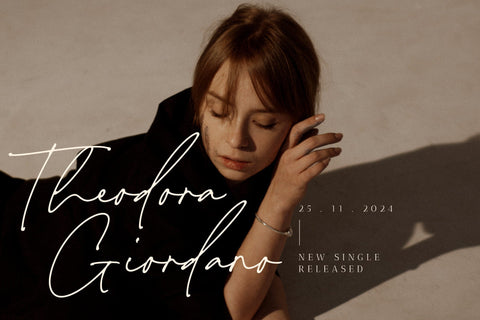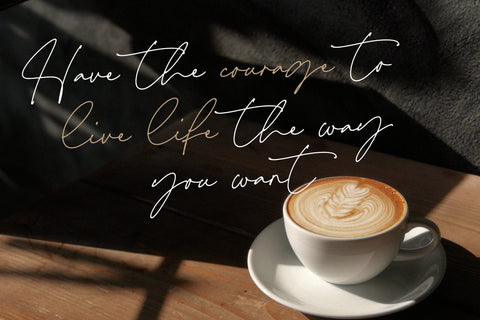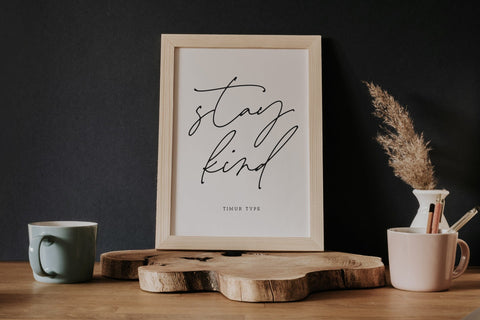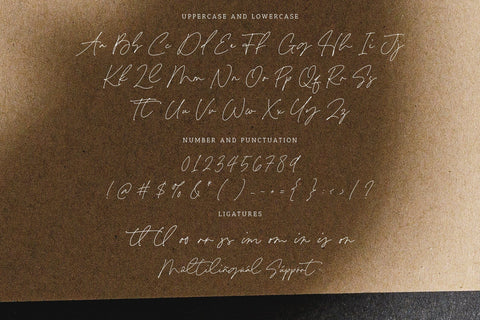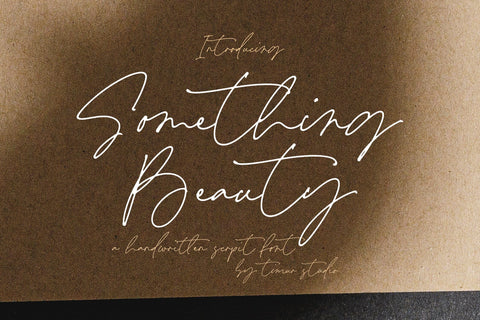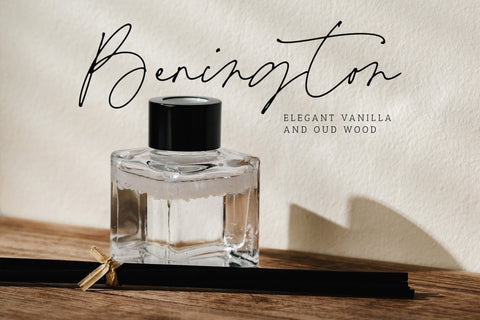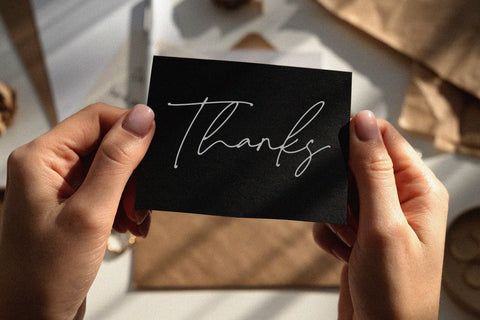
Something Beauty - Handwritten Script Font
Something Beauty is a Handwritten Script Font
This font promises to add a touch of elegance and charm to your design projects. With its graceful and flowing letterforms, this font exudes a sense of beauty and sophistication. The delicate curves and gentle strokes of the Something Beauty font create a harmonious and balanced visual appeal, reminiscent of handwritten love letters or elegant invitations. Its versatility makes it suitable for a wide range of design purposes, from wedding invitations to branding materials and more. Capture the essence of timeless beauty with the Something Beauty handwritten script font and let its graceful and enchanting style elevate your designs to new heights.
Something Beauty Font also supports multilingualism